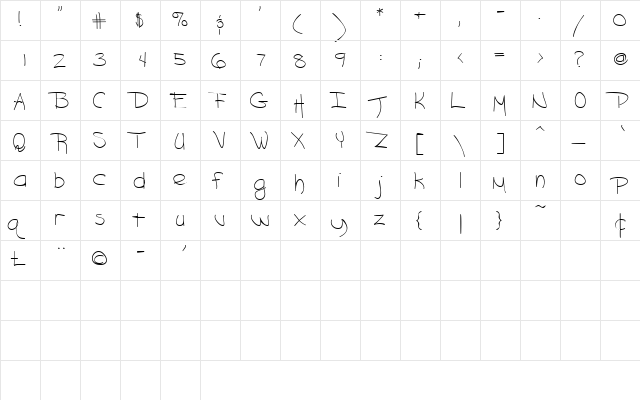
GrafittiScriptSSK Regular
Design Context for GrafittiScriptSSK Typeface
GrafittiScriptSSK flows with the natural rhythm of handwritten lettering, making it ideal for designs that call for warmth and personal expression.
Font Pairing: Combine GrafittiScriptSSK with a simple geometric sans for maximum contrast — the tension between flowing curves and clean structure is a classic typographic pairing.
Pro Tip: Pair GrafittiScriptSSK with a clean sans-serif for supporting text. The contrast between fluid script and geometric structure creates an elegant typographic hierarchy.